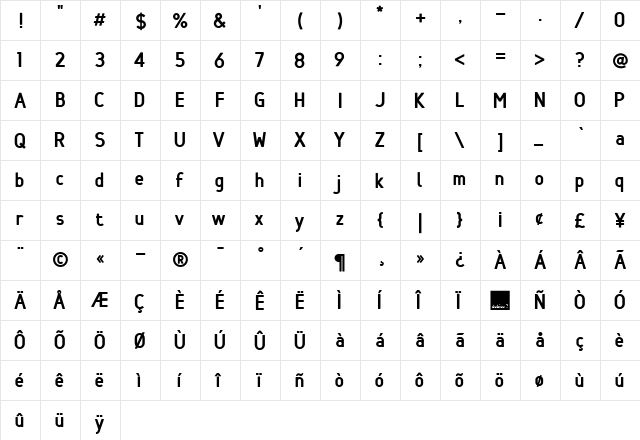
Min Regular
Design Context for Min Typeface
Min is a composed and adaptable typeface that performs quietly and consistently across a wide range of design contexts.
Pro Tip: Use Min in both headline and body roles to test its range before committing to a single application.